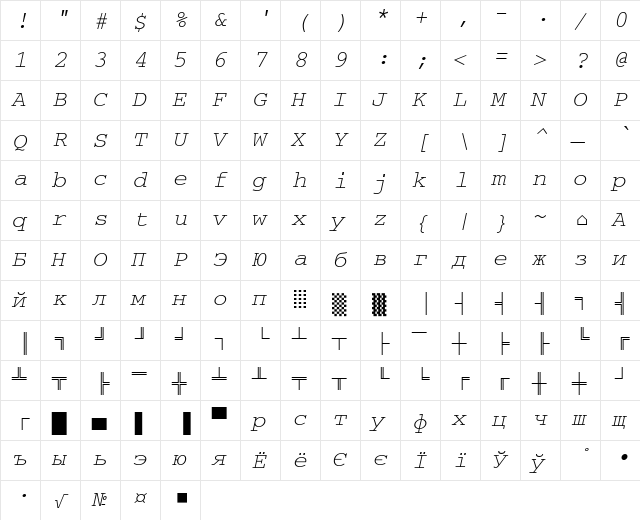
CourierDOSCTT Italic Font Preview
Design Context for CourierDOSCTT Typeface
CourierDOSCTT uses fixed-width spacing throughout, giving it the structured, systematic character associated with coding environments and technical documentation. The dynamic lean of this cut emphasises speed and emphasis in any layout.
Well-suited to data-driven dashboards, coding tutorials, and any design that wants to reference the world of programming.